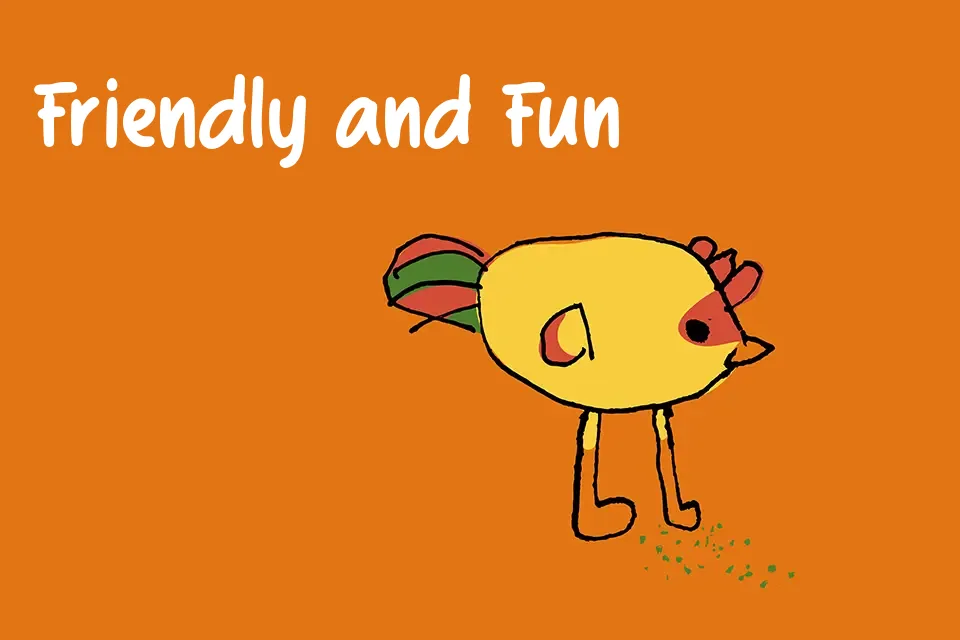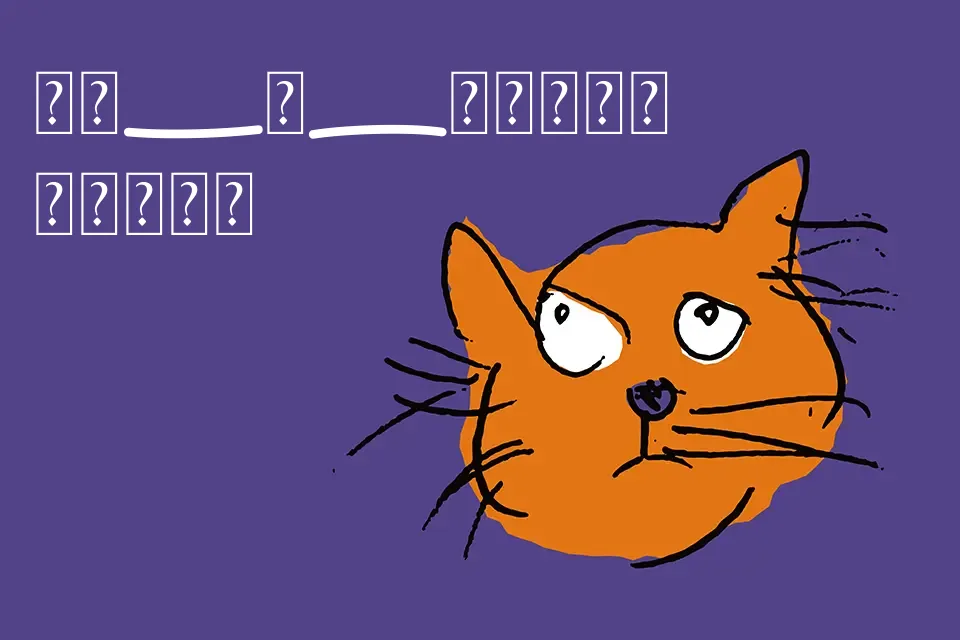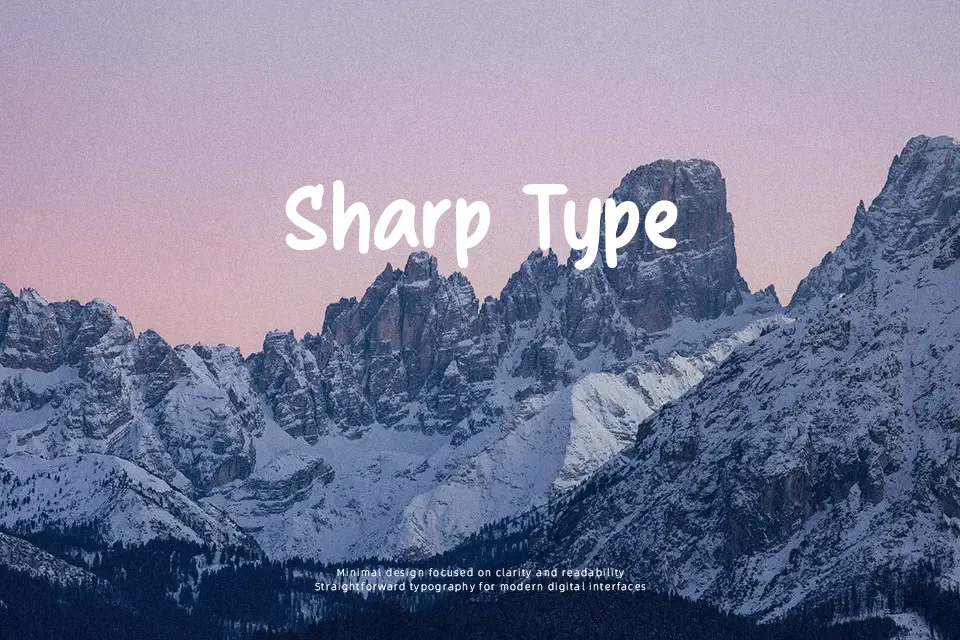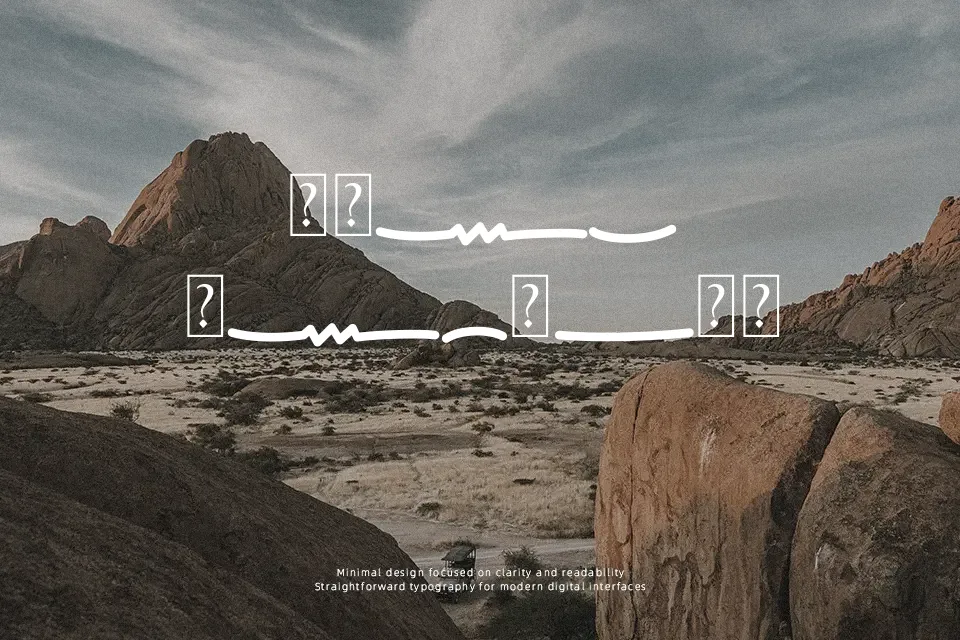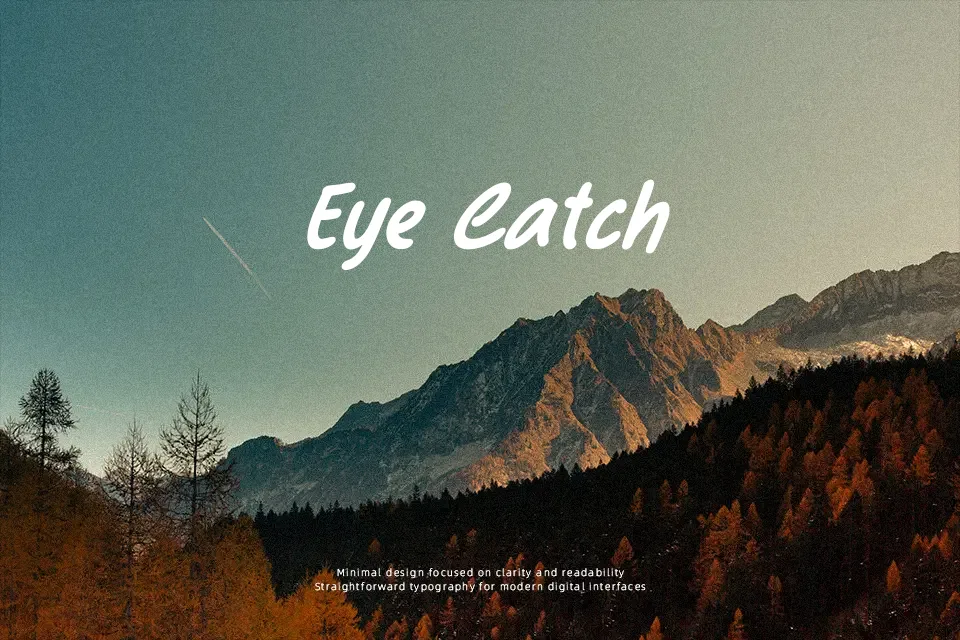
Shaeila Maker Font
Designed by Kong Font
Shaeila Maker Font exhibits loose, hand-drawn character structures with organic marker strokes, softened terminals, and subtle baseline bouncing. Uppercase glyphs carry robust weights with slightly asymmetrical counters, while the lowercase set maintains balanced proportions that keep short phrases legible and visually engaging. Spacing between characters remains relaxed and open, accommodating the varying contours without producing awkward gaps in display arrangements. This typeface performs exceptionally well on youth-oriented branding, cartoon title sequences, and playful merchandising. However, the heavy strokes and informal variations reduce reading comfort across extended body paragraphs and dense editorial layouts. Small interface captions can also lose stroke definition.
children’s book covers
cartoon title cards
casual food packaging
playful event banners
extended body text
corporate annual reports
dense spreadsheet tables
small mobile interface labels
Perfect for headline, kids, and packaging, with a bold and comic style.